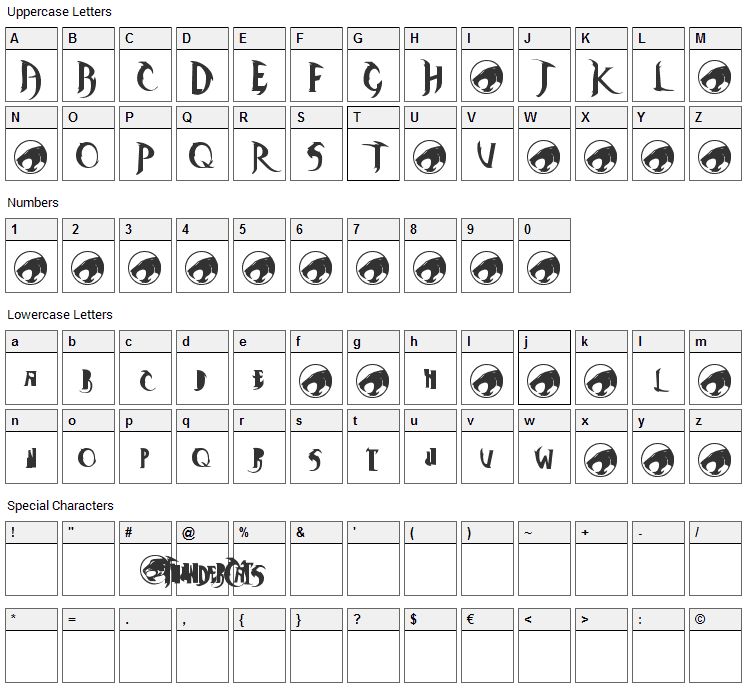
ThunderCats + ThunderCaps Font
This jagged, stylistic typeface is based on the 1980's Thundercats cartoon series and toyline logo. Lots of sharp angles and 'mis-sized' letters to give a stylized fantasy look.